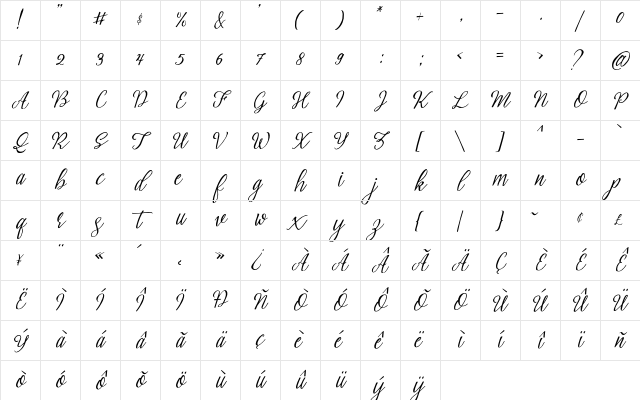
Brightside Typeface Regular
Foundry: Queentype
Designer: Queentype
Design Context for Brightside Typeface
Brightside Typeface is a composed and adaptable typeface that performs quietly and consistently across a wide range of design contexts.